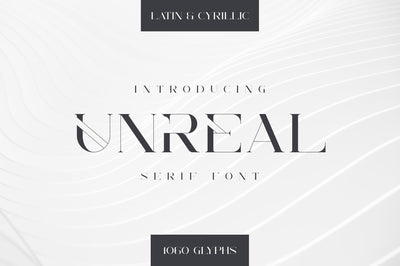
Unreal serif font - Latin & Cyrillic
Introducing Unreal Serif font - Latin & Cyrillic
Unreal is all modern, clean font with latin and Cyrillic support, includes total 1060 glyphs, tons of alternate glyphs, and multilingual support. It's a very versatile font that works great in large and small sizes.
Unreal is perfect for branding projects, home-ware designs, product packaging, magazine headers - or simply as a stylish text overlay to any background image.
- Uppercase, numeral,punctuation & Symbol
- Total 1060 glyphs
- Cyrillic support - Russian, Ukrainian, Bulgarian and more
- Alternate glyphs
- Multilingual support